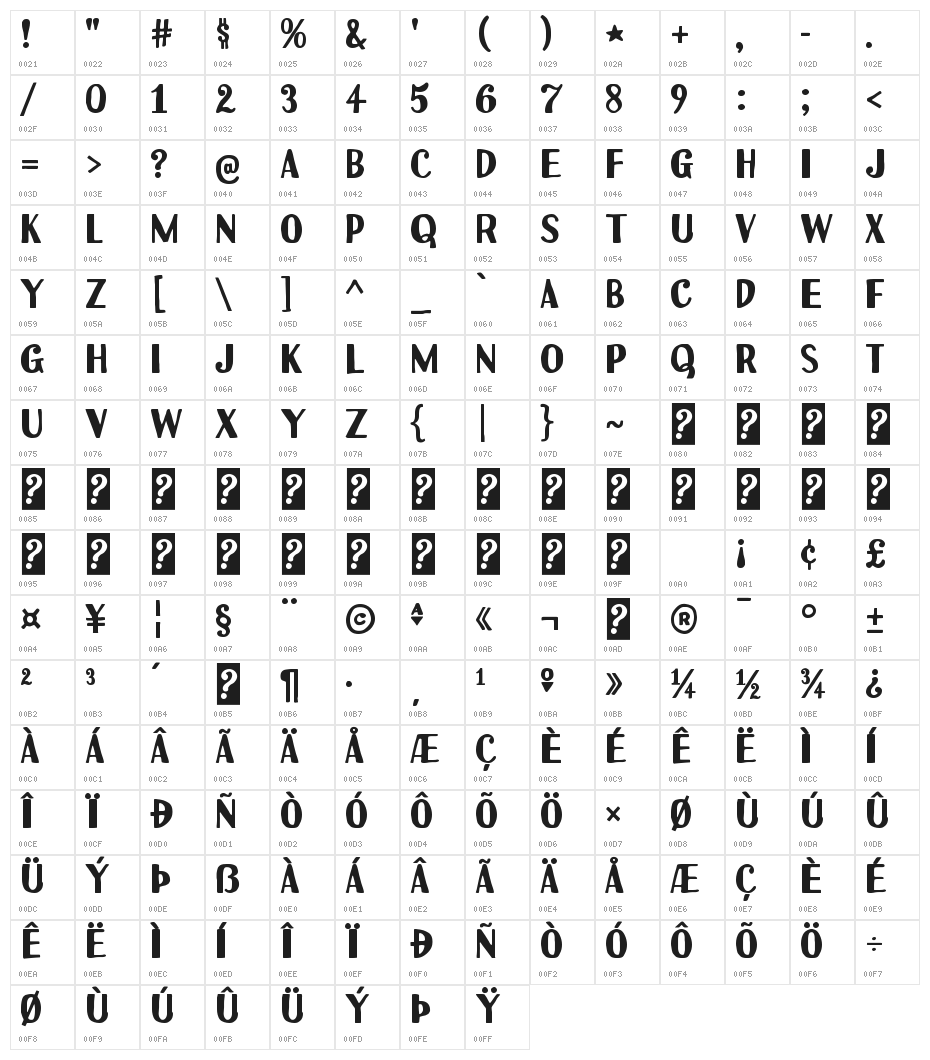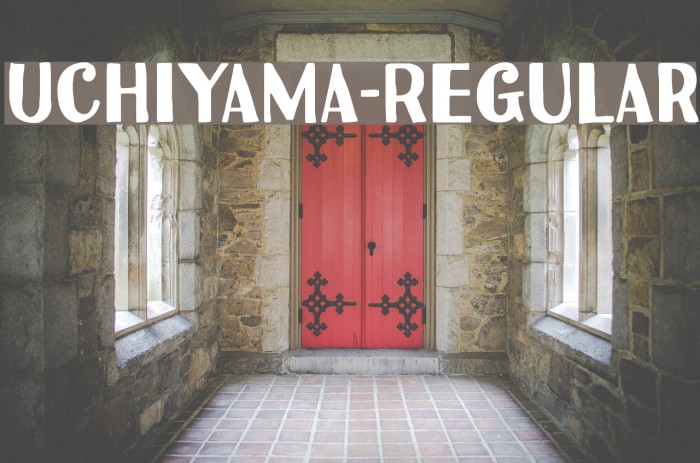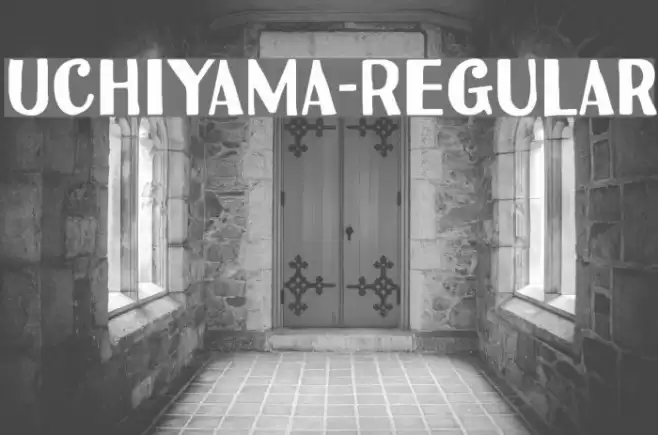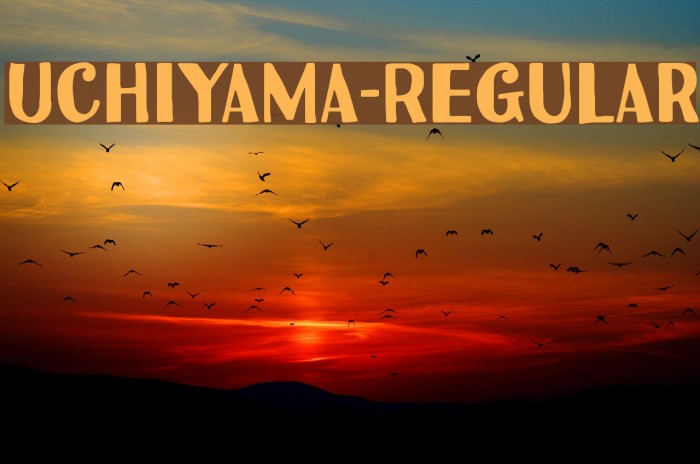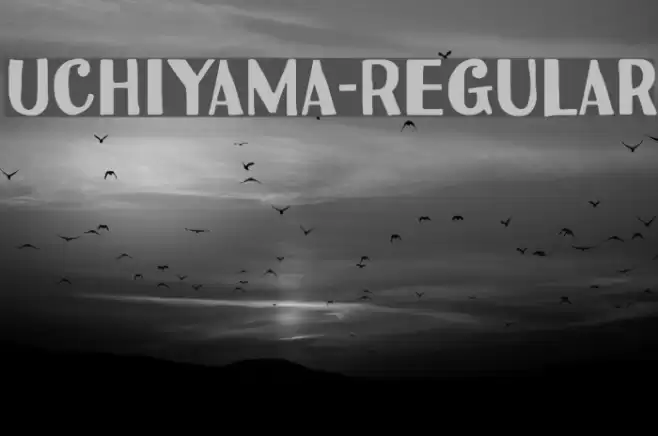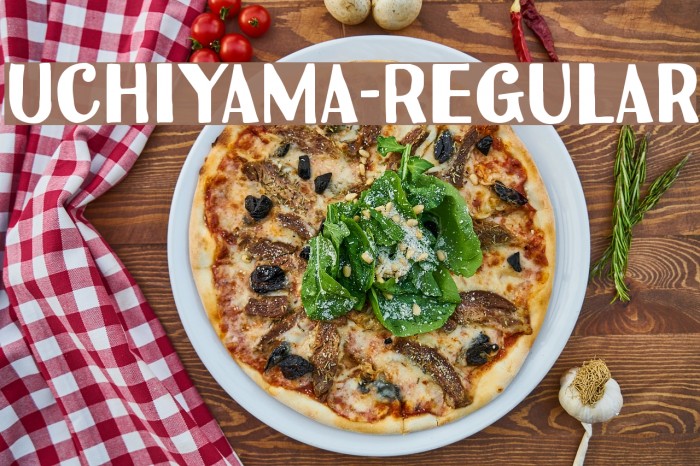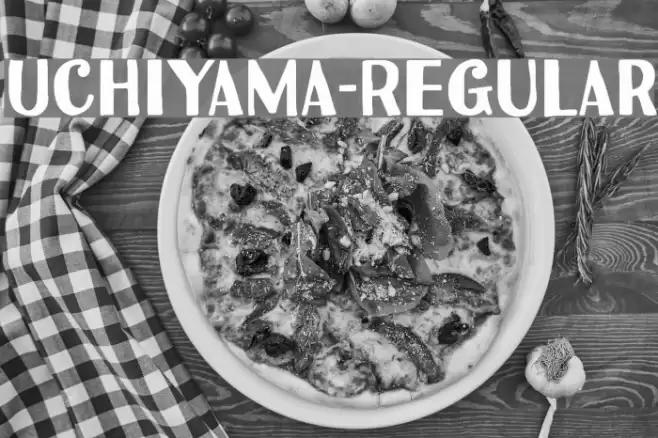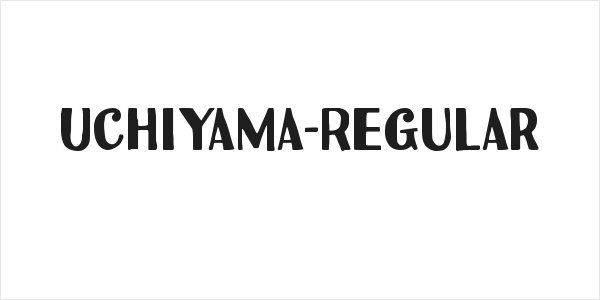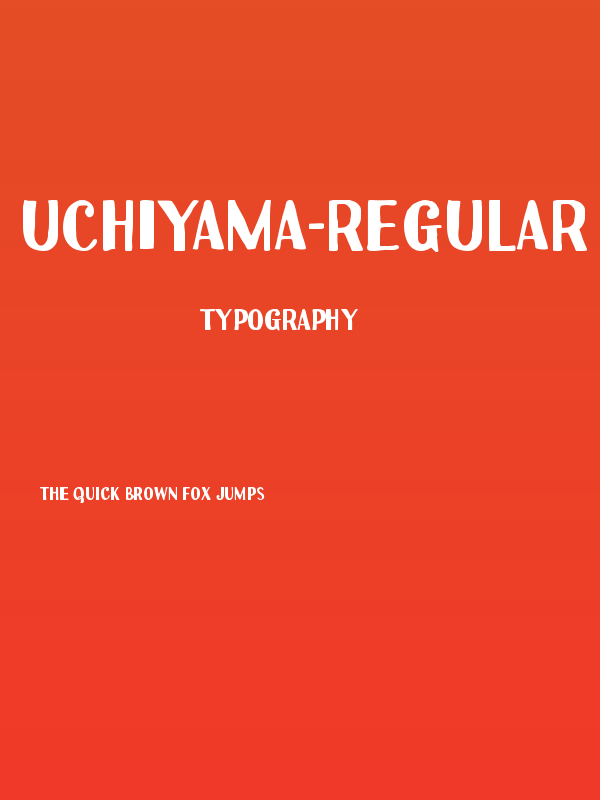
Uchiyama-Regular Font
Uchiyama-Regular Description
This font features a bold and playful design, characterized by its thick strokes and slightly irregular shapes. The uppercase letters are robust and dynamic, with a handcrafted feel that adds a touch of whimsy. The lowercase letters maintain this playful aesthetic, offering a consistent style throughout. The numerals are bold and easy to read, making them suitable for a variety of uses. Special characters are included, each designed with the same attention to detail and creativity. The overall appearance is both eye-catching and approachable, making it ideal for projects that require a friendly and informal tone.
| Overall Style | Playful, Handcrafted |
| Proposed Projects | Ideal for children's books, playful branding, posters, and creative projects. |